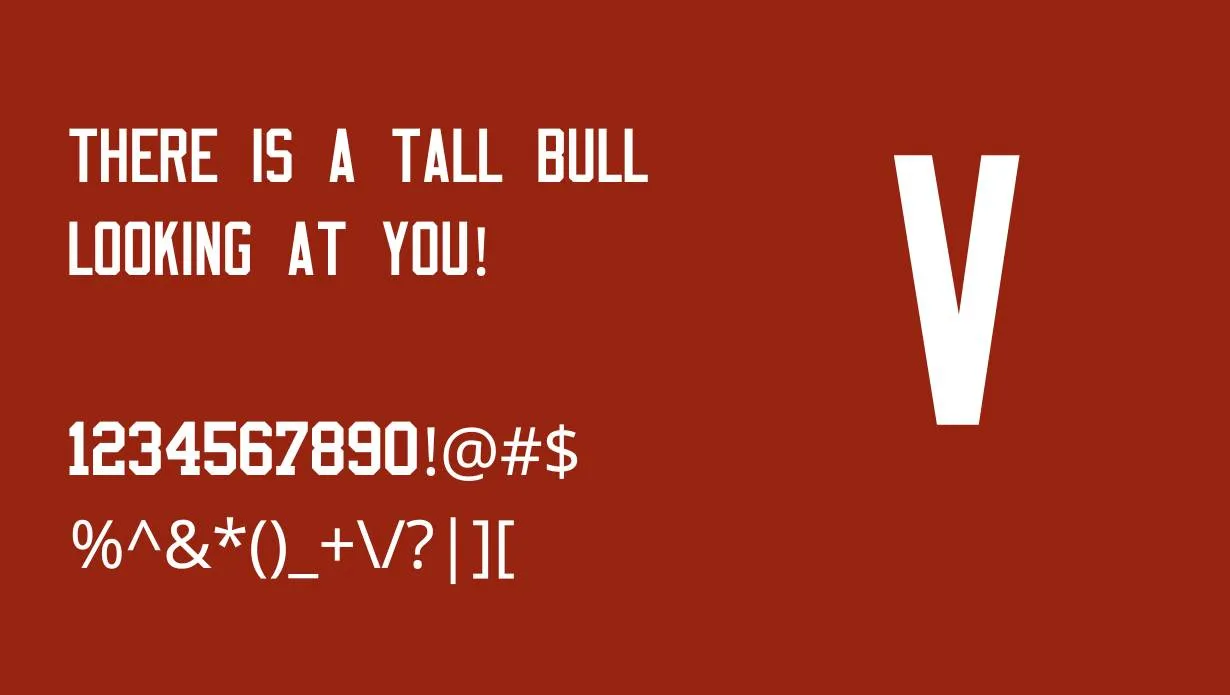
Varsity Block A Regular is a timeless and strong font perfect for sports and collegiate designs. It adds a touch of tradition and power to your projects, especially ideal for sports team logos, jerseys, and any design that calls for a bold, athletic appearance.
The regular weight provides a balance between impact and readability, making Varsity Block A Regular a dependable choice for a variety of sports-themed applications.
| Style | Display |